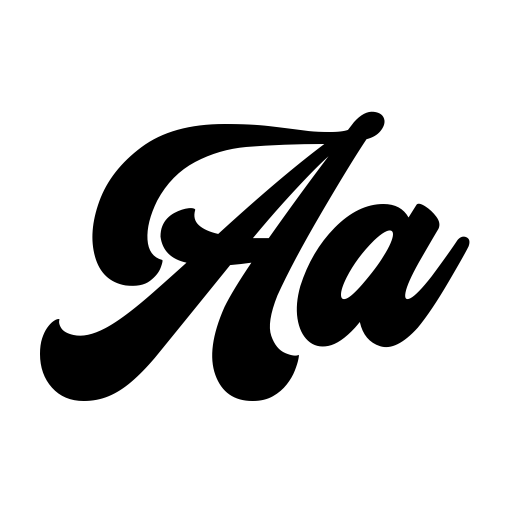
Balione is a bold, cursive script font that combines a playful yet elegant flair with its thick, flowing strokes and smooth, rounded forms. Its heavy weight and connected letterforms give it a strong presence, making it perfect for eye-catching logos, headlines, and branding that aim for a vintage or handcrafted feel. This font works well wherever you want to convey personality and charm with a touch of retro style.
Balione Font